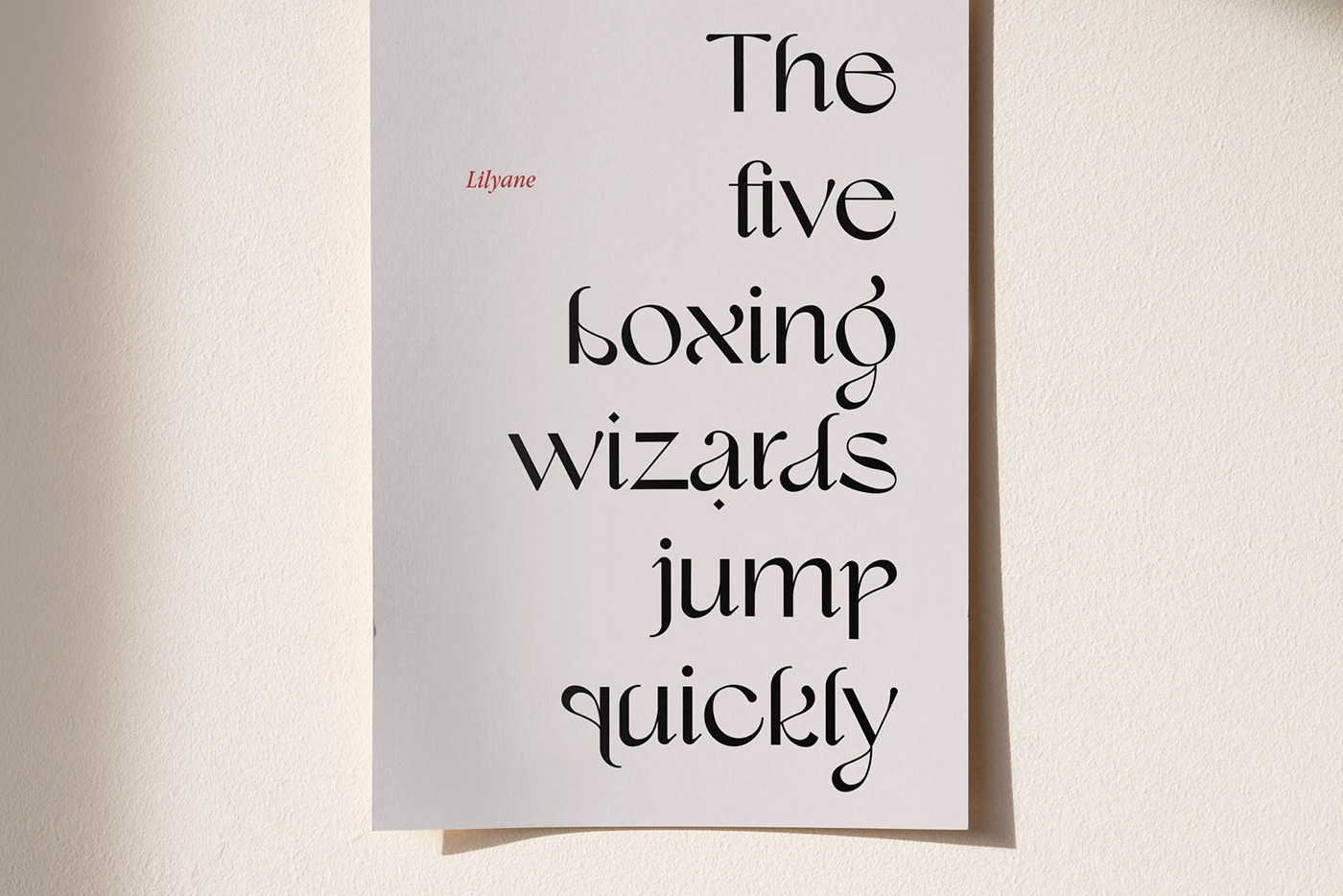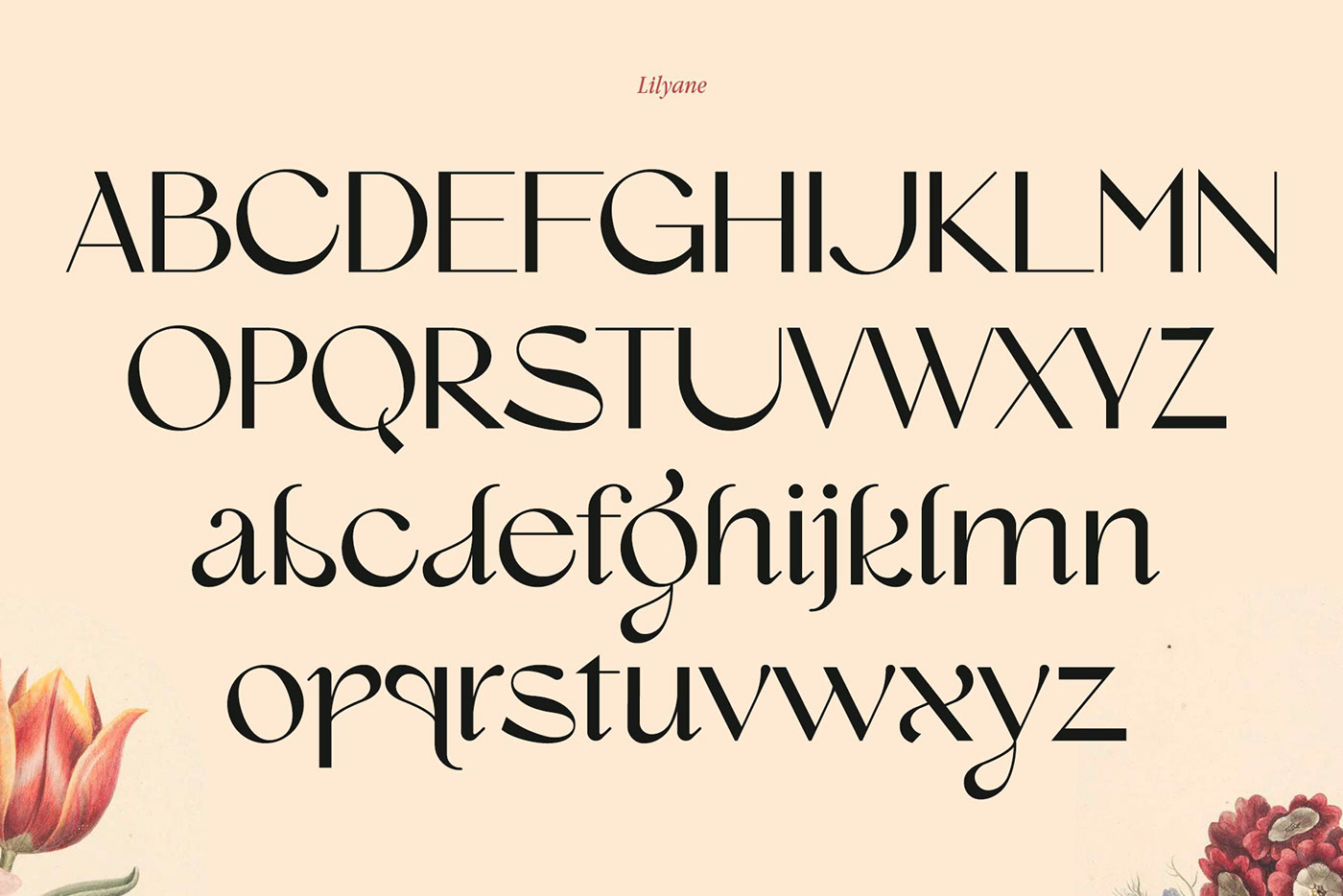
Introducing Lilyane from Bryantama Design. A modern, elegant & lovely display serif font. This font is perfect for use in branding, social media content, posters, packaging & much more.